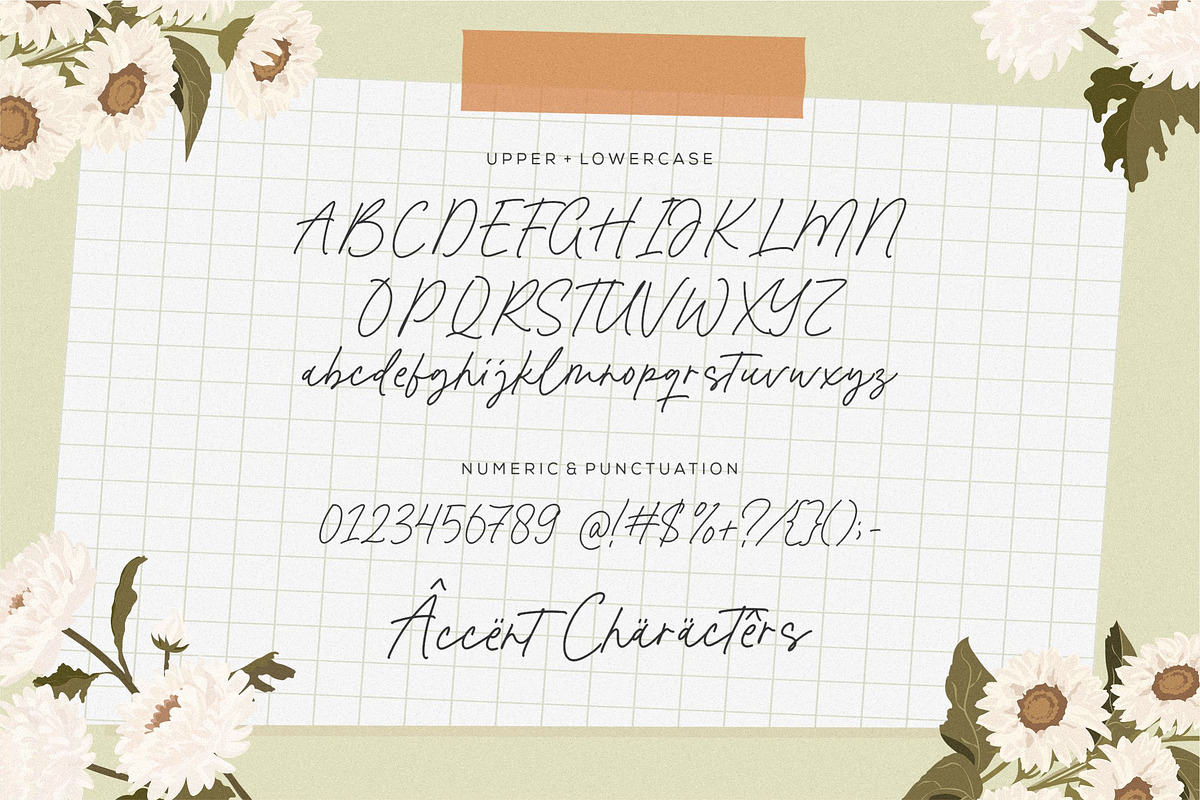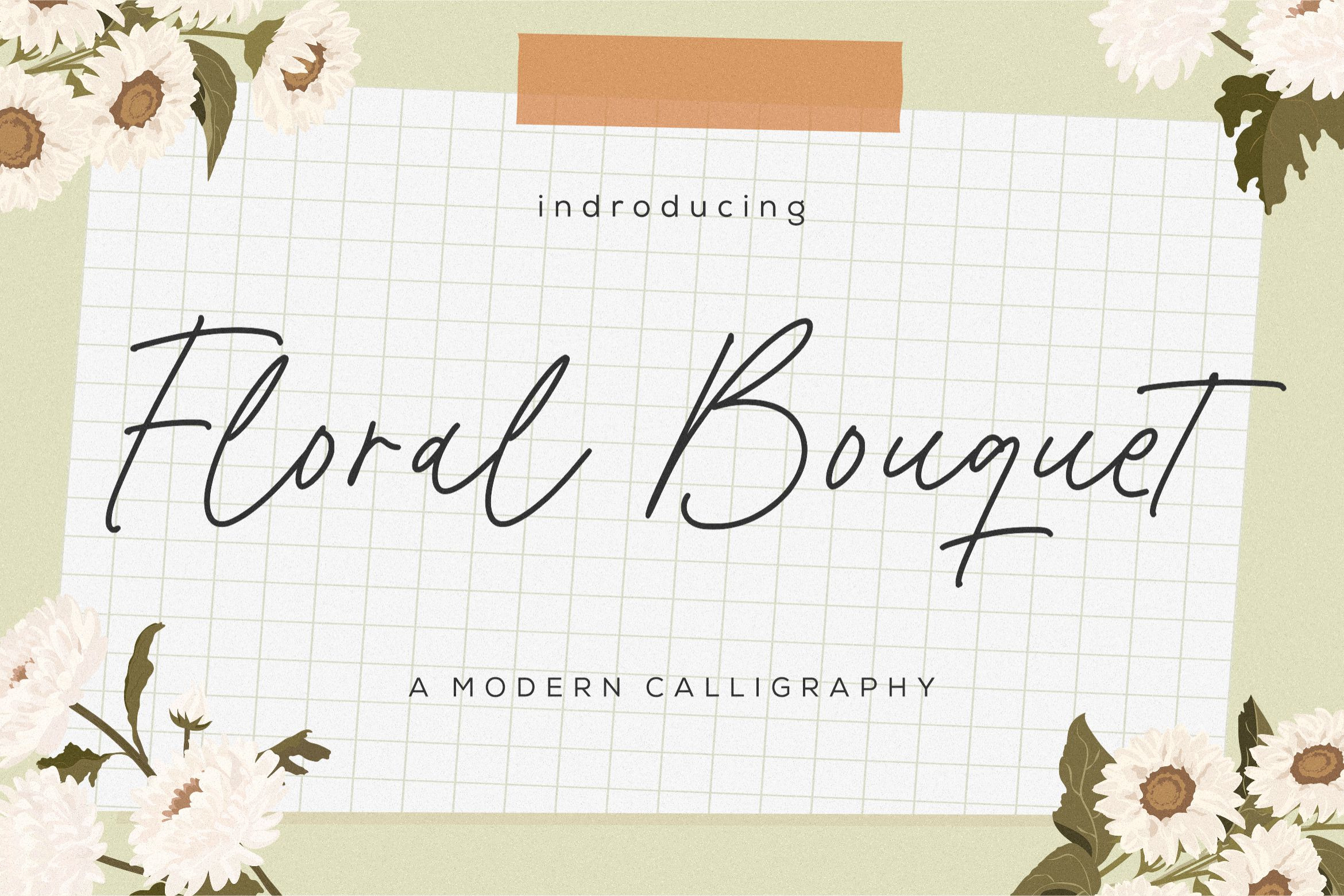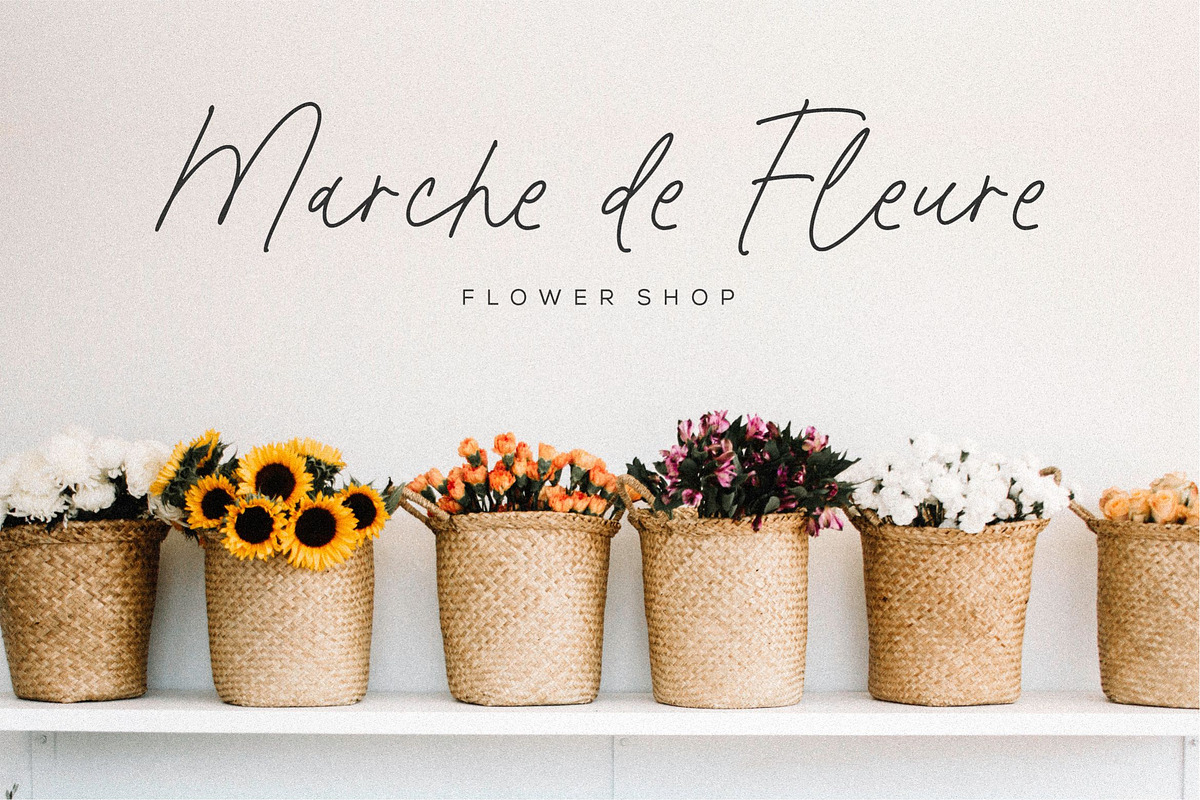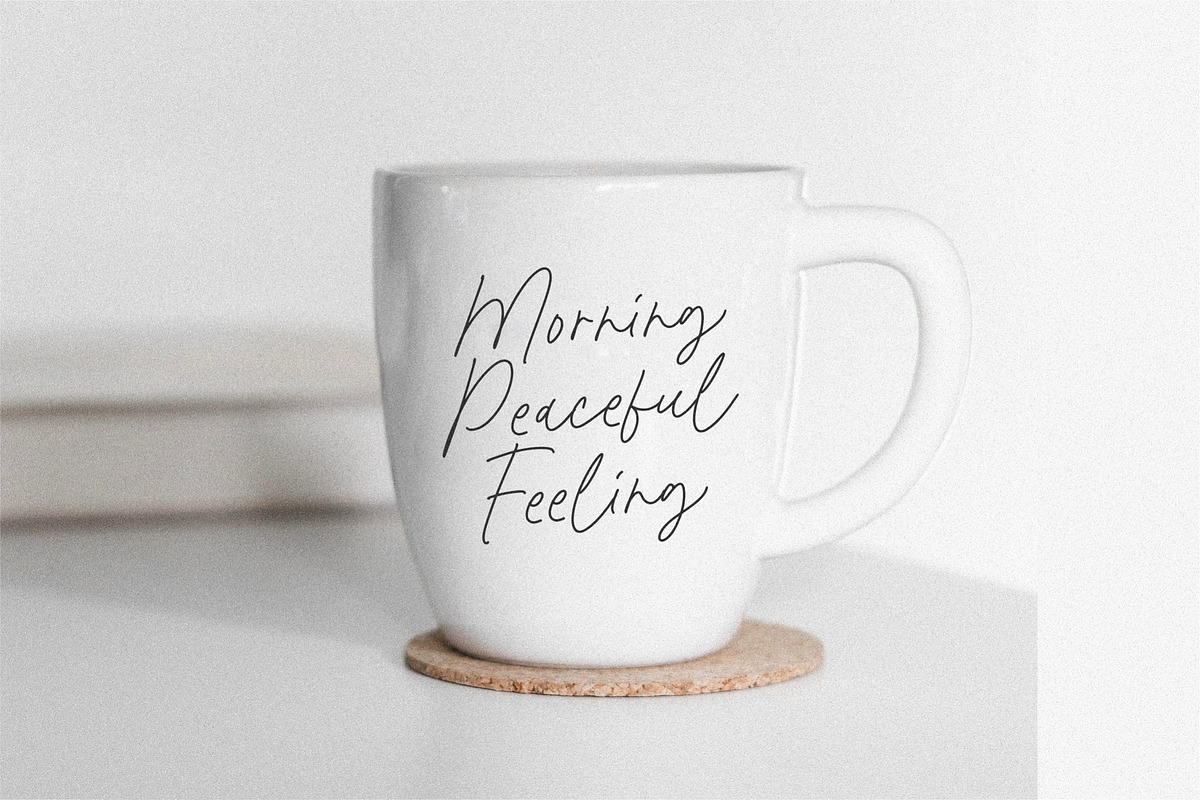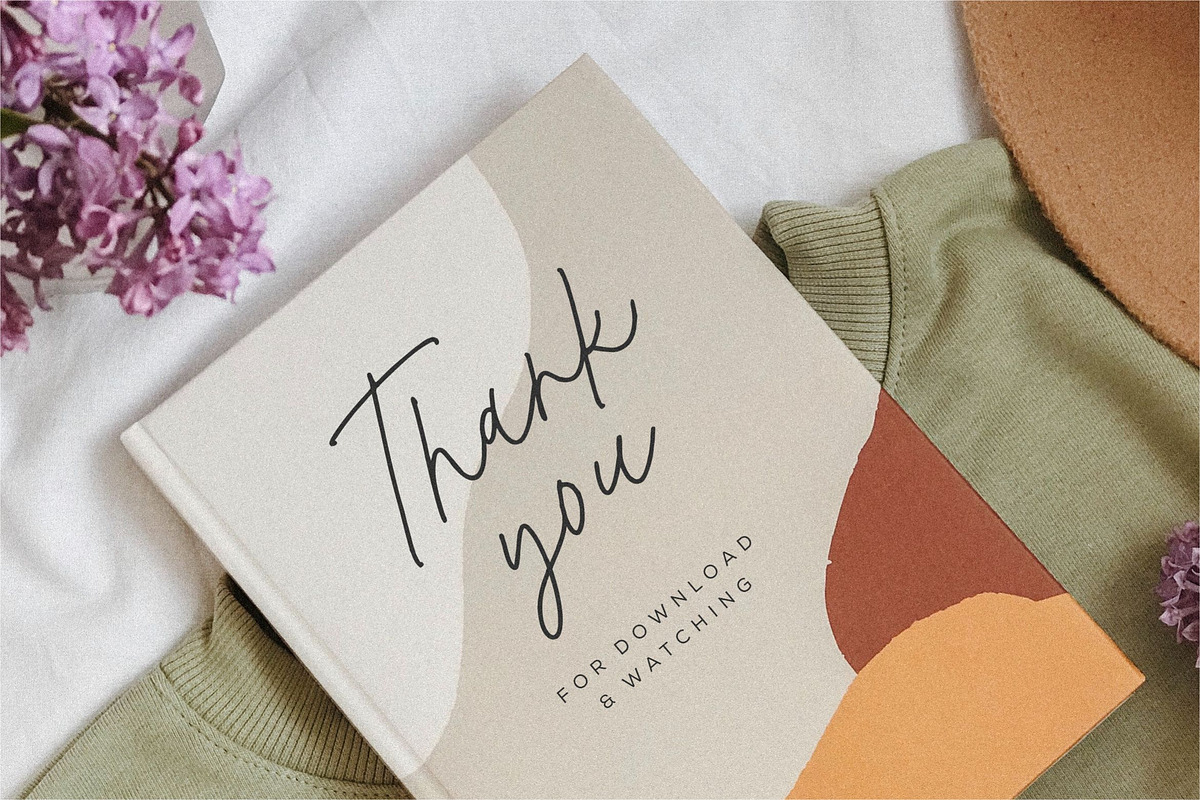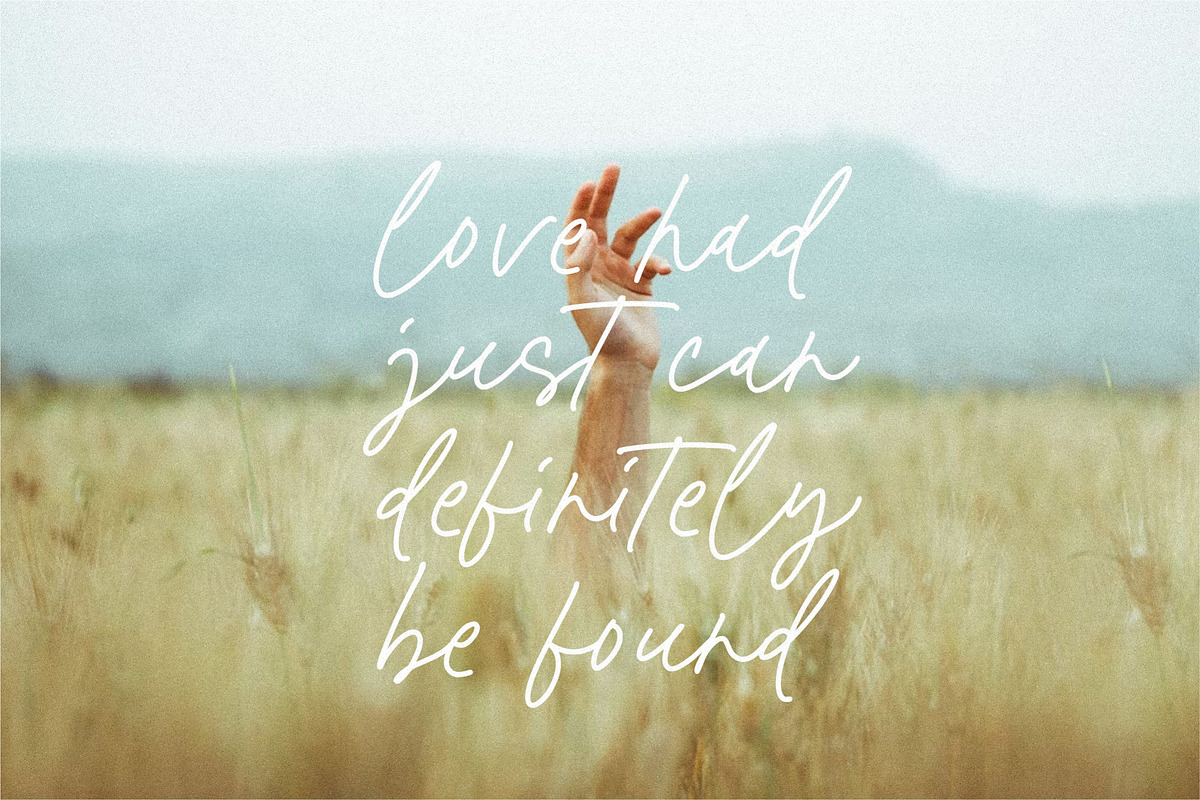
Floral Bouquet Font
Floral Bouquet - a modern calligraphy that's clean, elegant and perfect for a range of design projects! With its smooth, effortless lines and understated sophistication, this font is the perfect choice for those who want a modern look that's still timeless in its appeal.
Crafted with precision and care, this font is incredibly versatile and can be used for a range of design projects, including logos, branding, invitations, packaging, and more. With its simple yet refined aesthetic, it's sure to make a lasting impression on anyone who sees it.